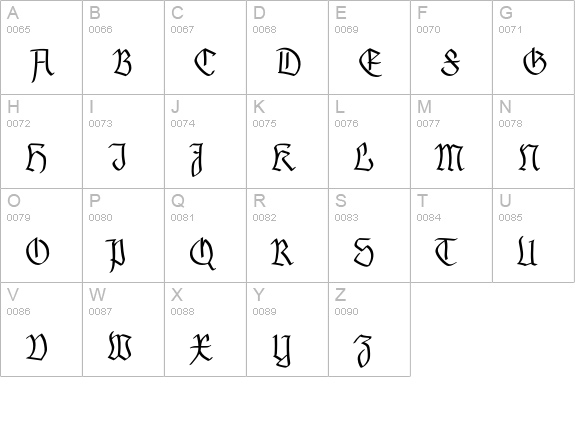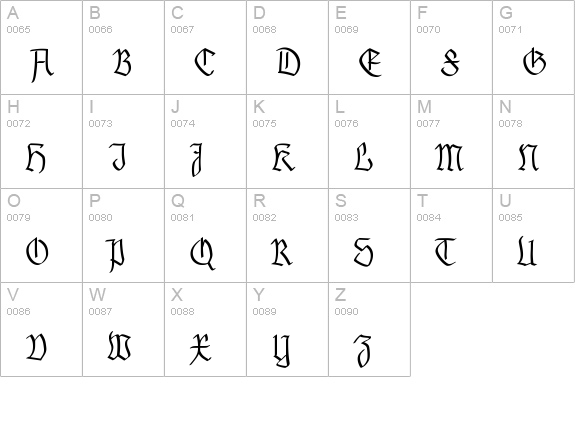
Buchkunst Font Details
Buchkunst font is a timeless and elegant typeface that exudes sophistication and class. Its delicate serifs and graceful curves make it the perfect choice for projects that require a touch of refinement. Whether you're designing a wedding invitation, creating a logo, or crafting a book cover, Buchkunst font will add a touch of elegance to your work. The best part? Buchkunst font is completely free! You can download this exquisite typeface for no cost at FontsMarket.com. Embrace the beauty and versatility of Buchkunst font in your designs and elevate your projects to the next level.